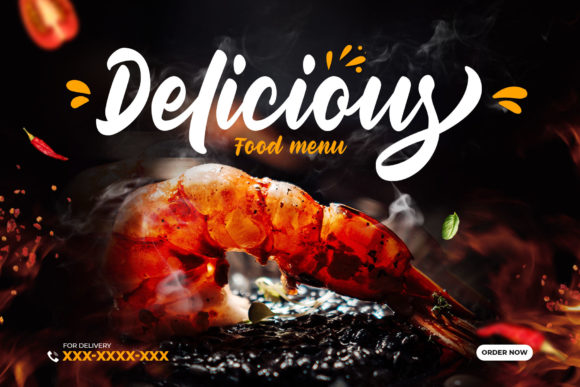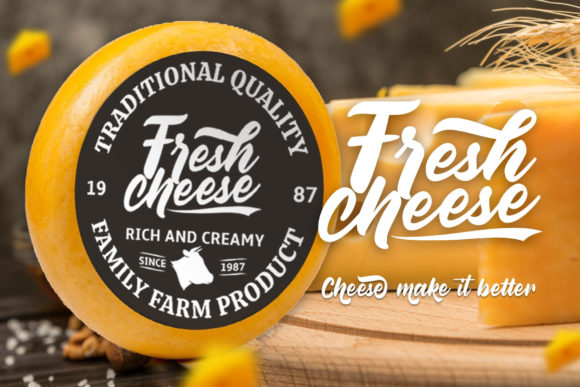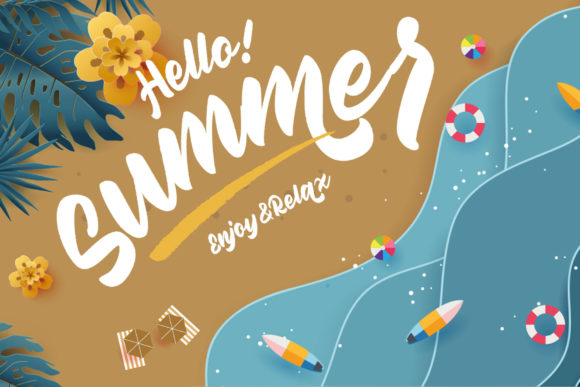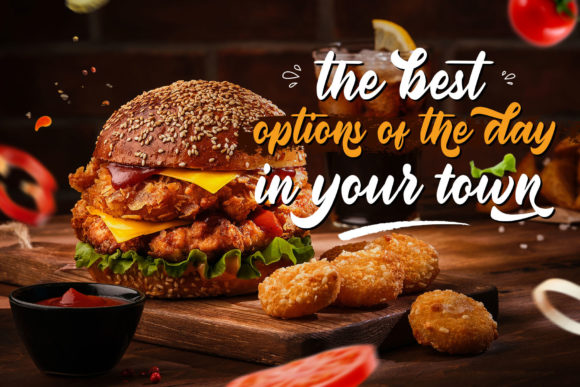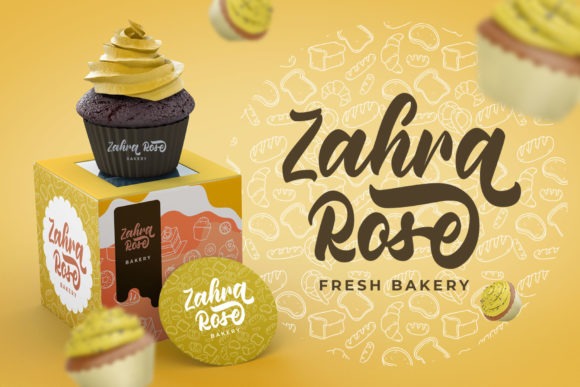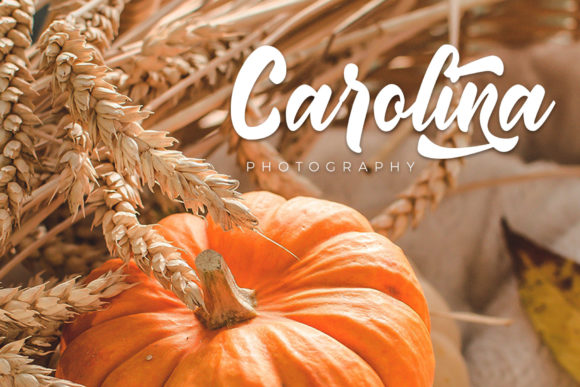
Introduction to Rantika Font
Rantika is a cursive and thick lettered handwritten font, crafted to give your headlines and logotype projects a stylish touch.
This font reads as strong, confident, and dynamic and can add tons of nostalgic character to your designs Rantika is PUA encoded which means you can access all of the glyphs and swashes with ease.